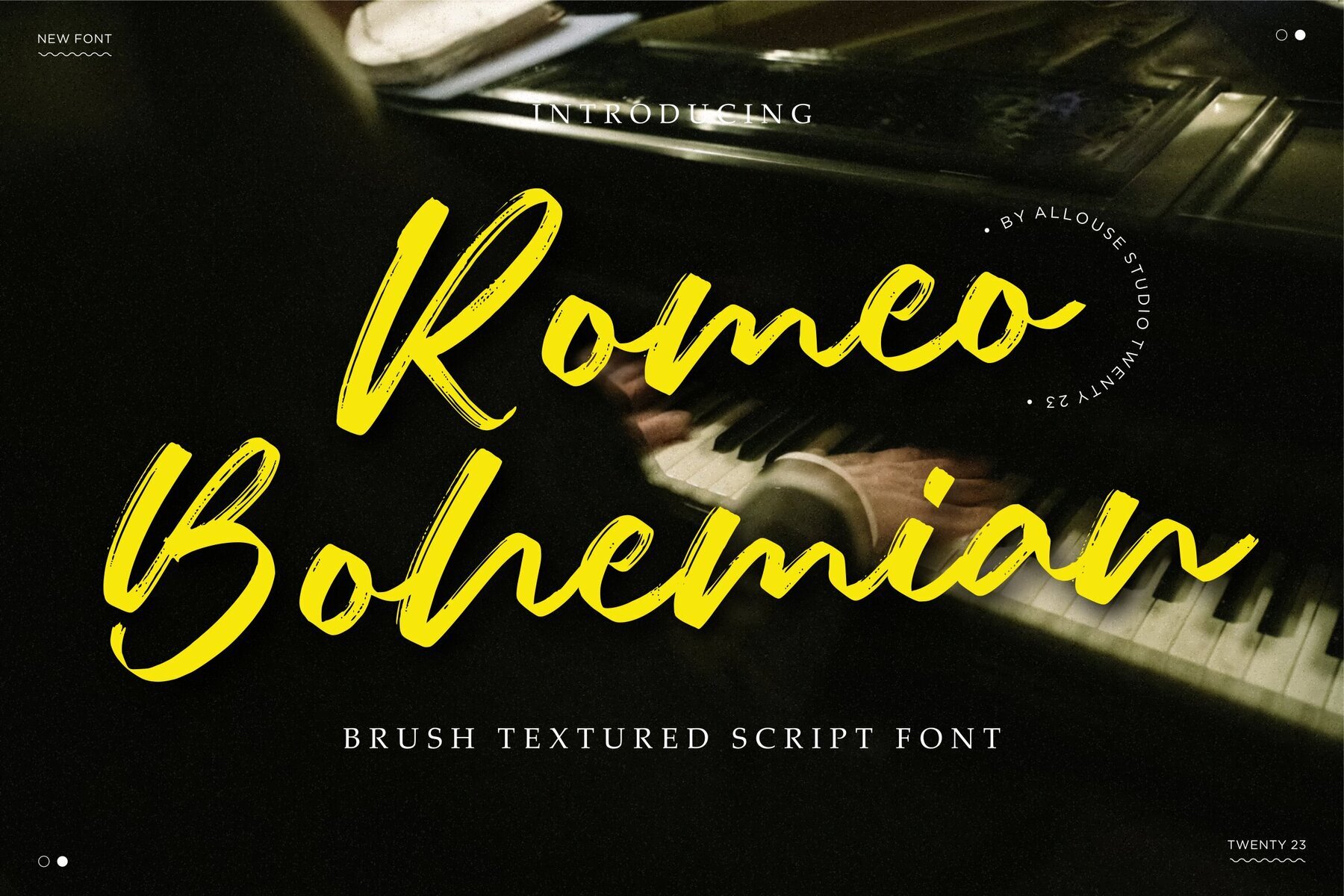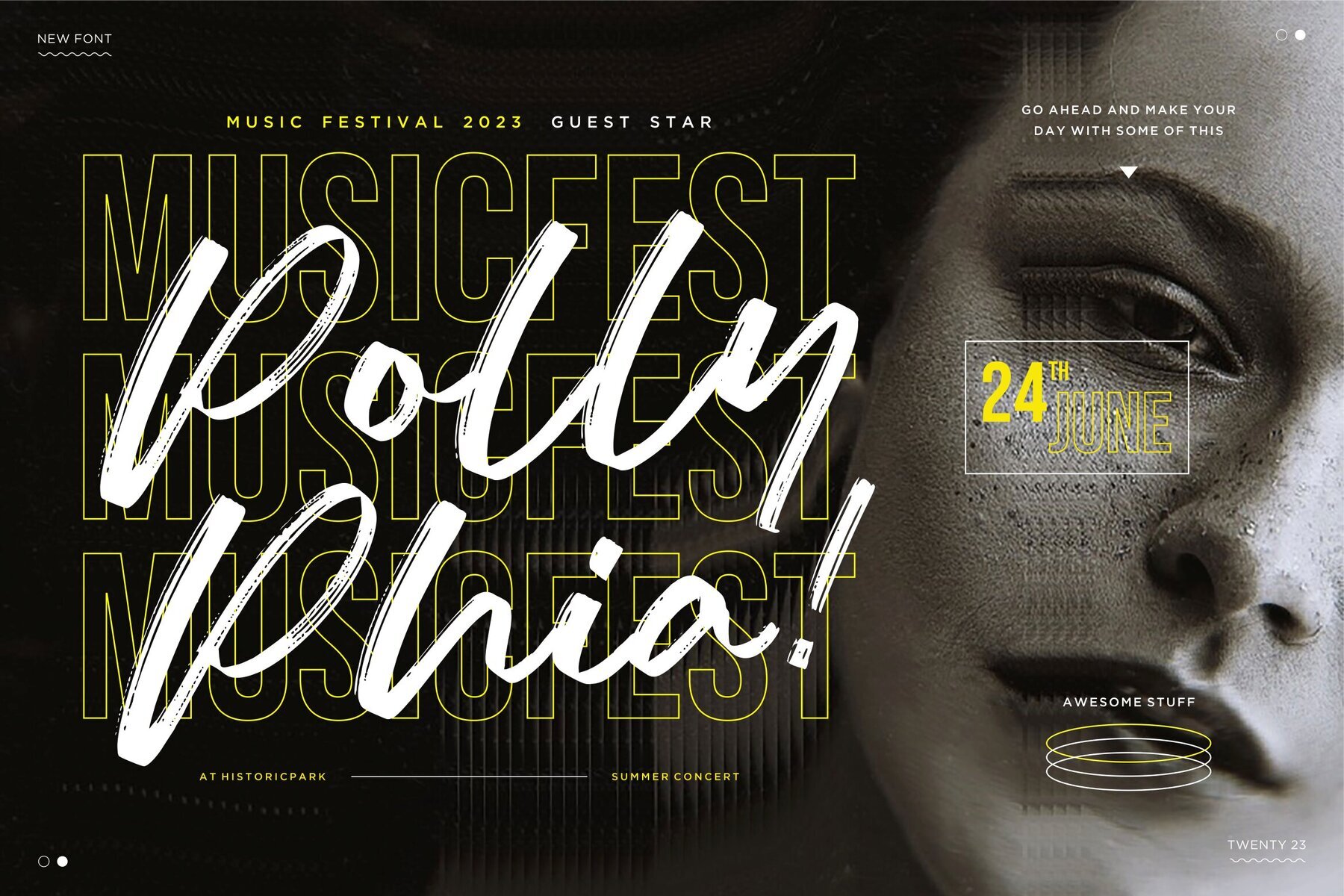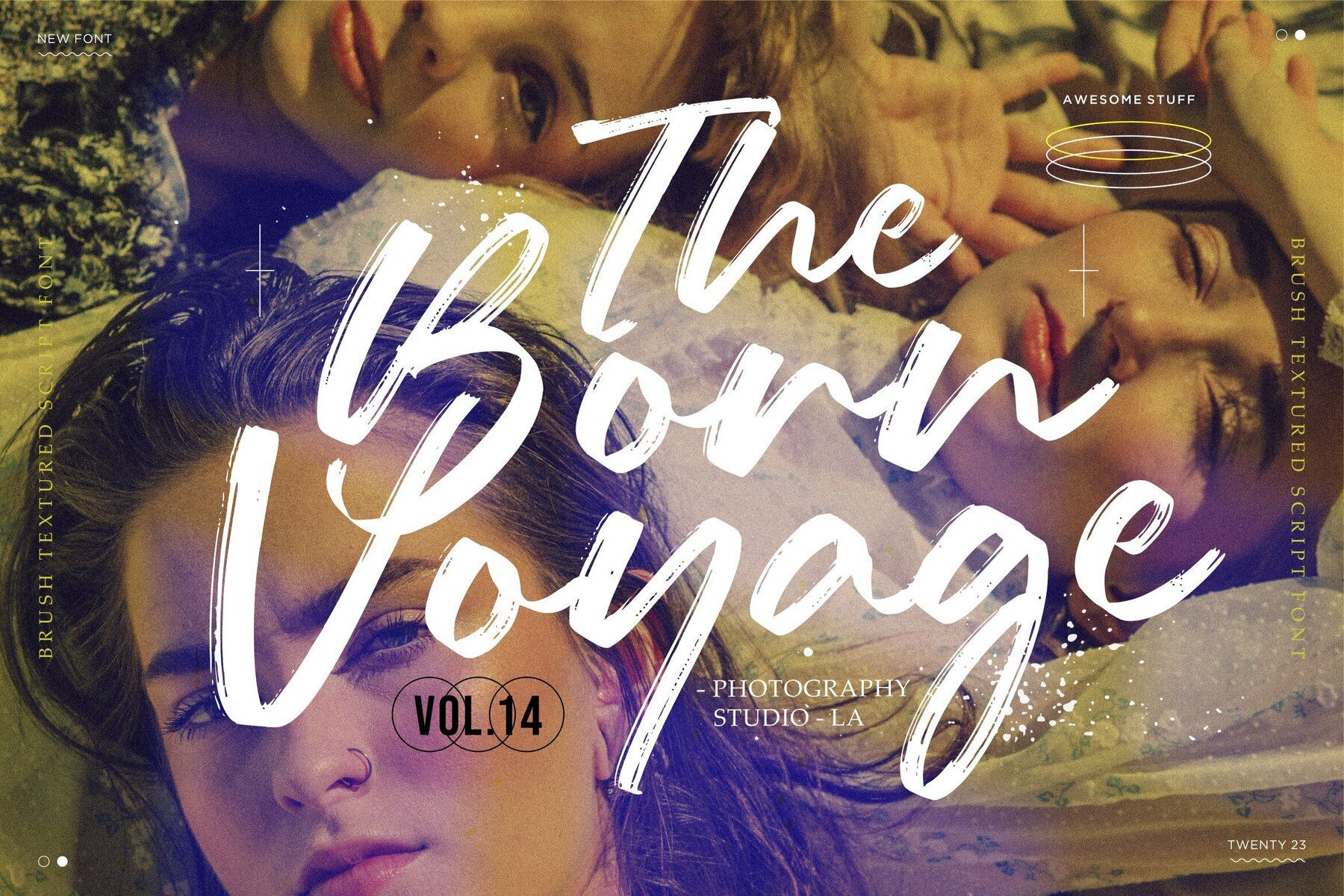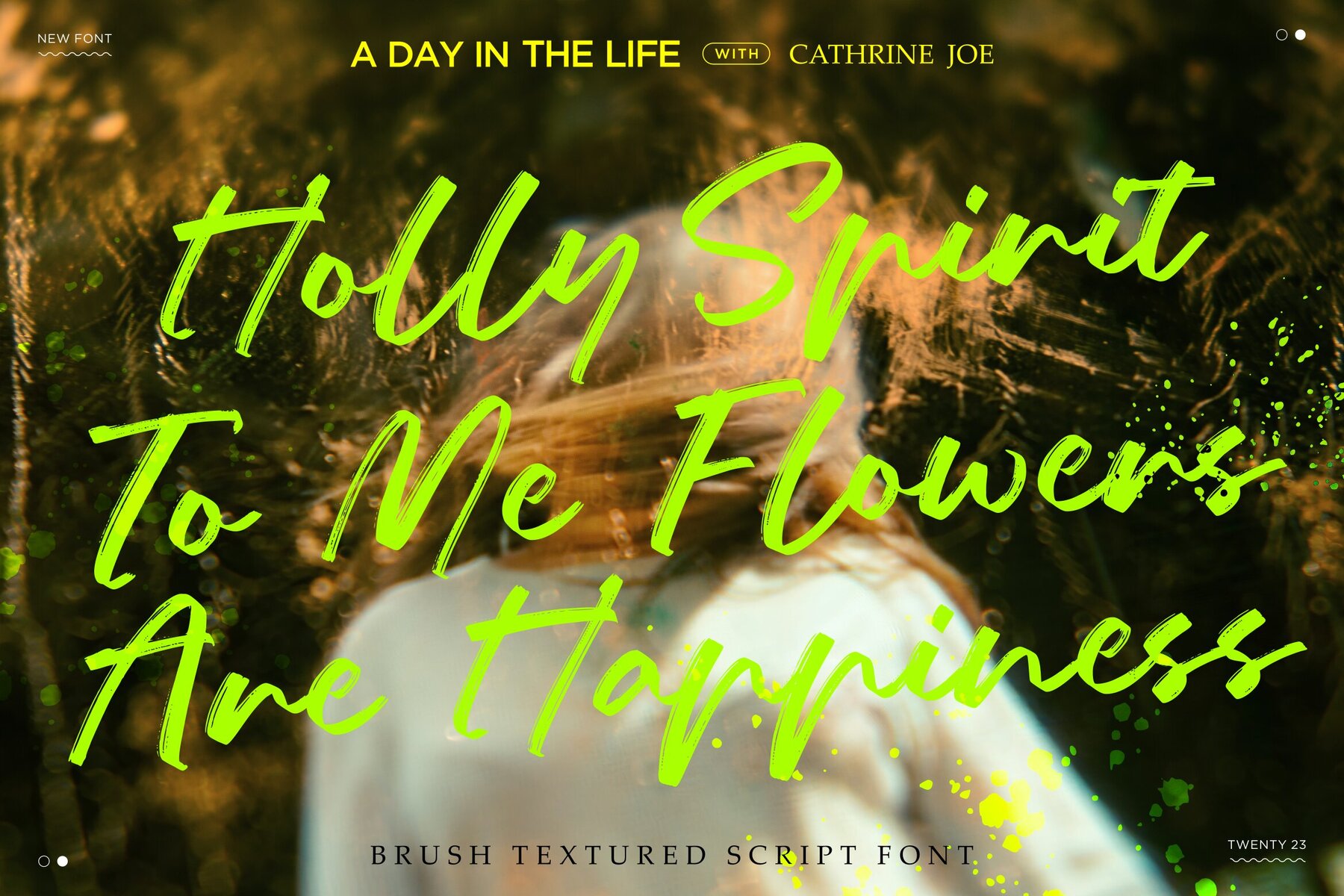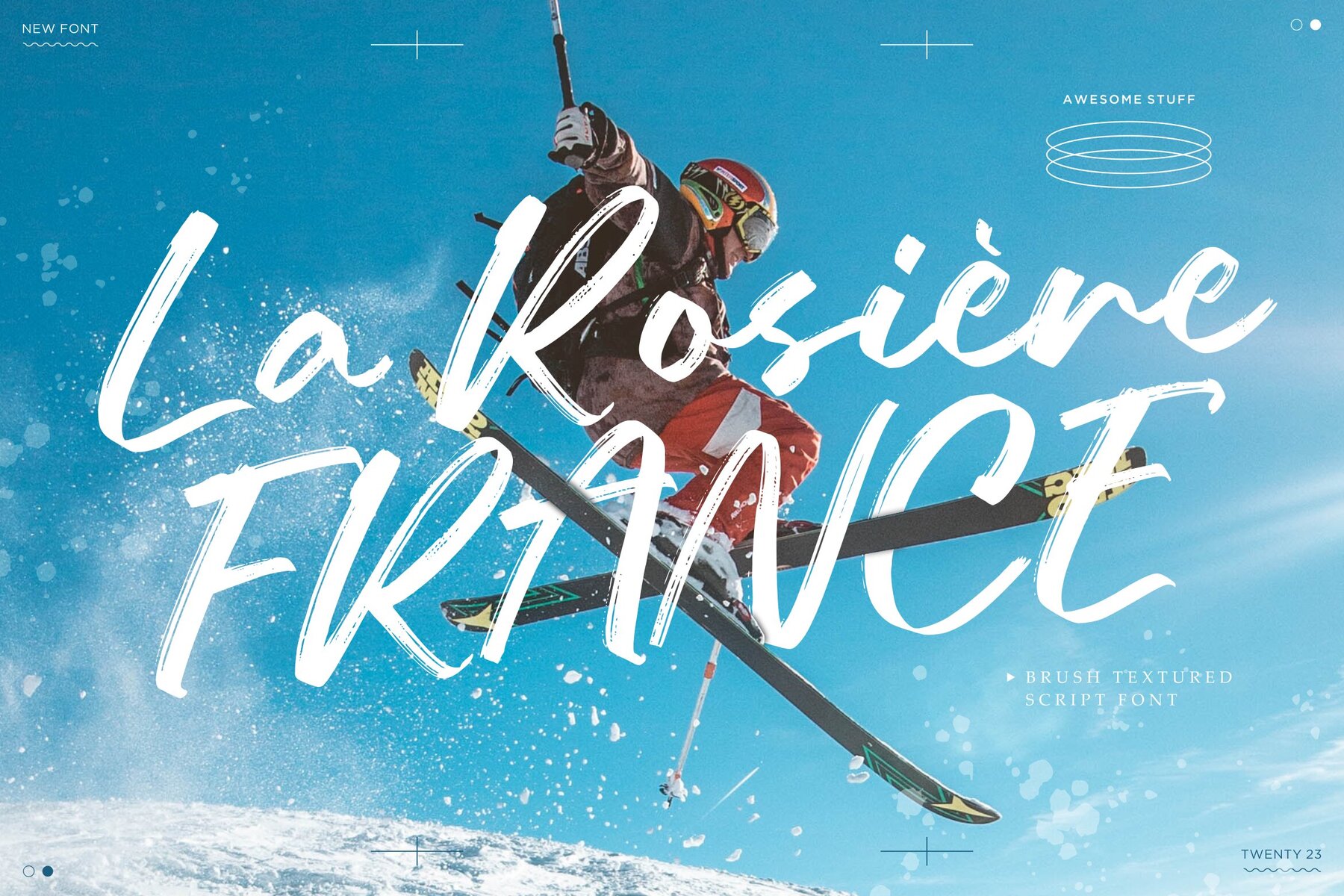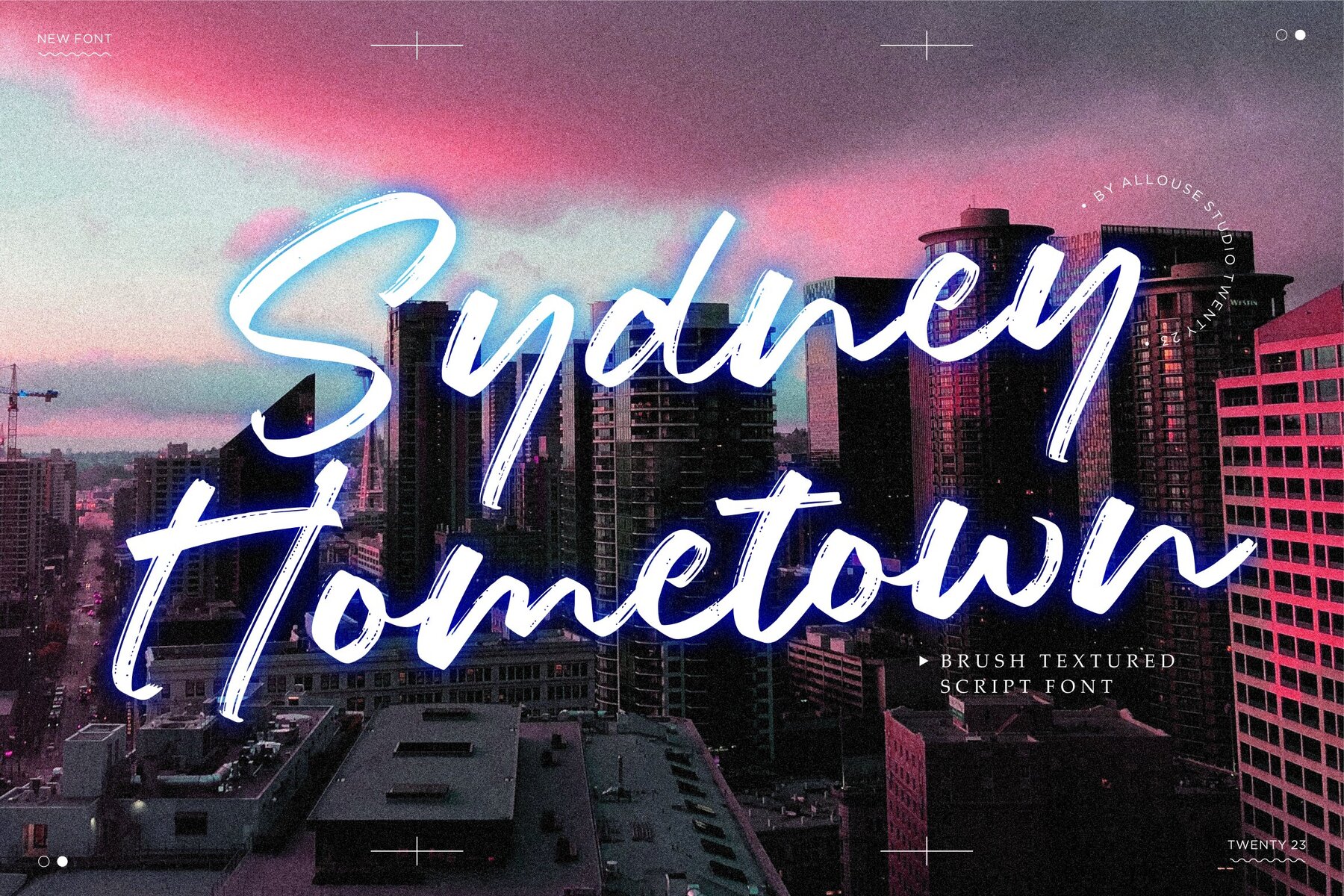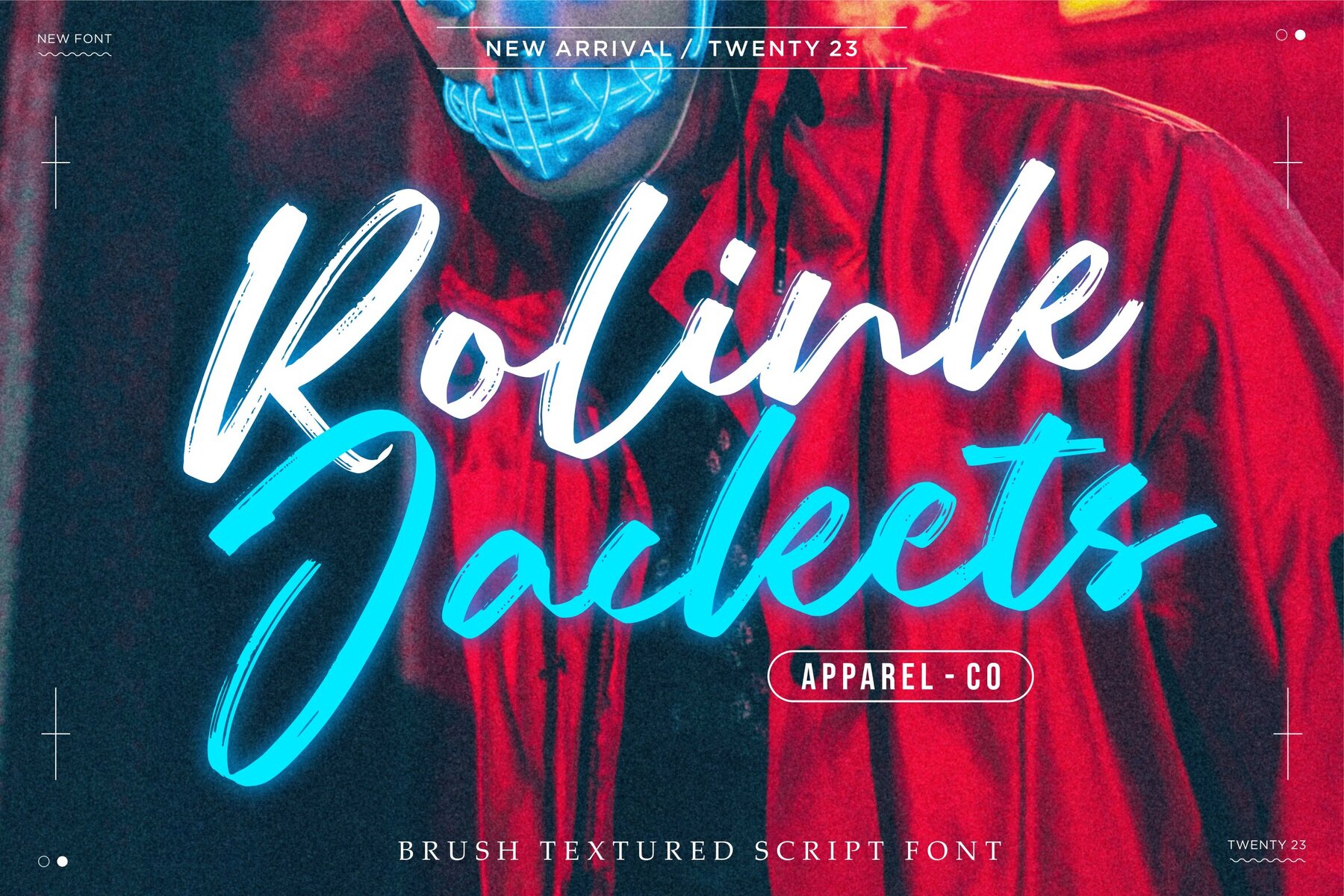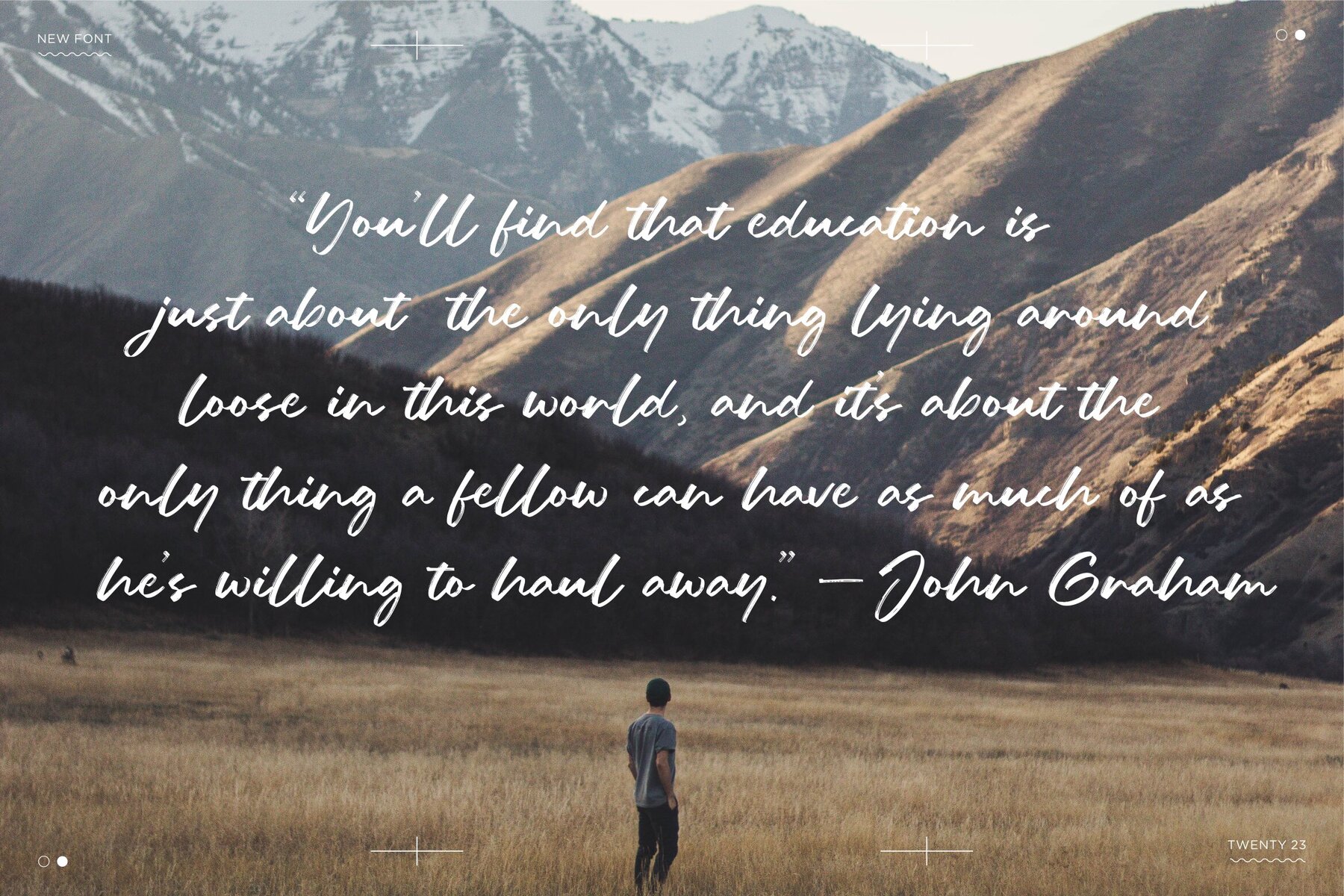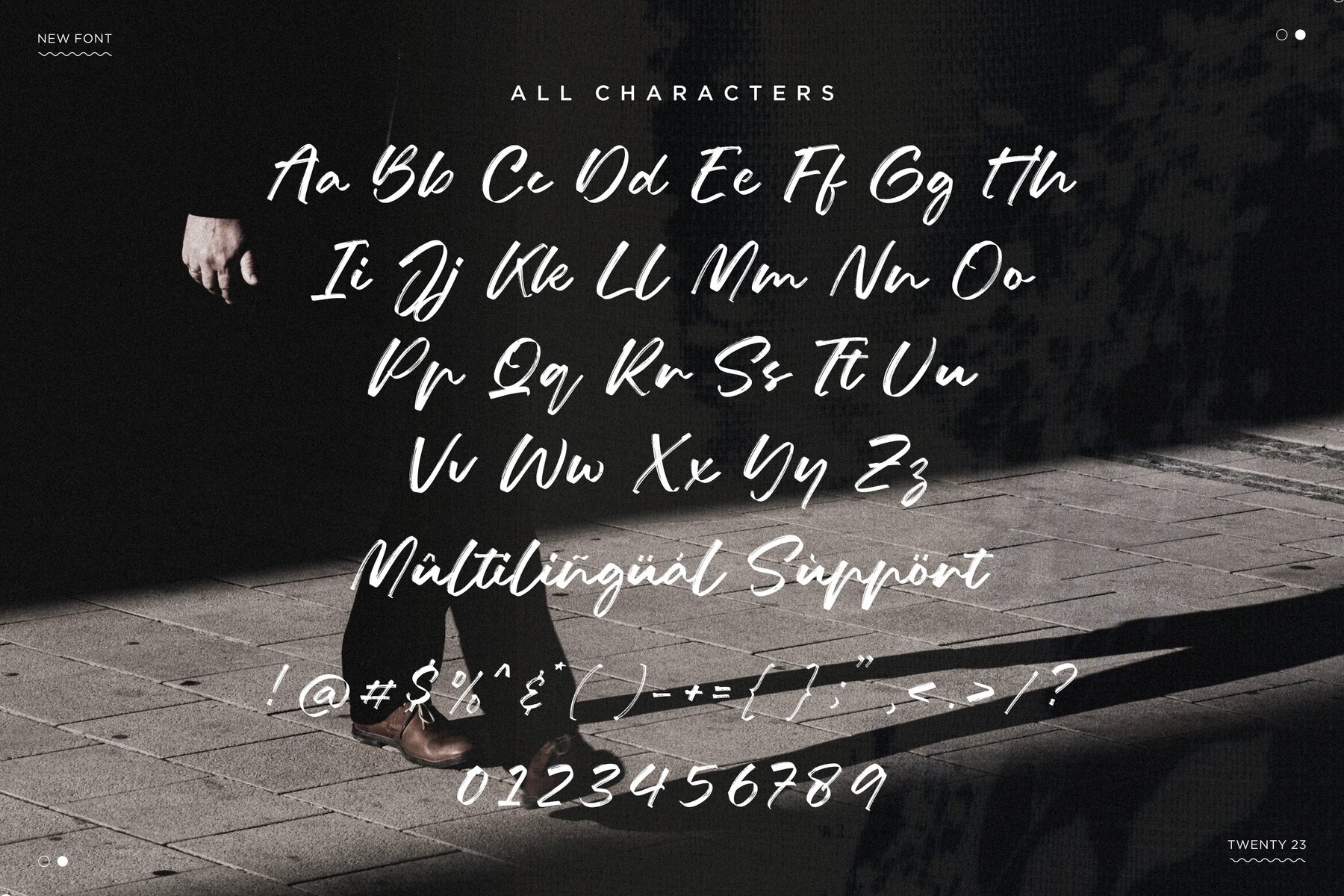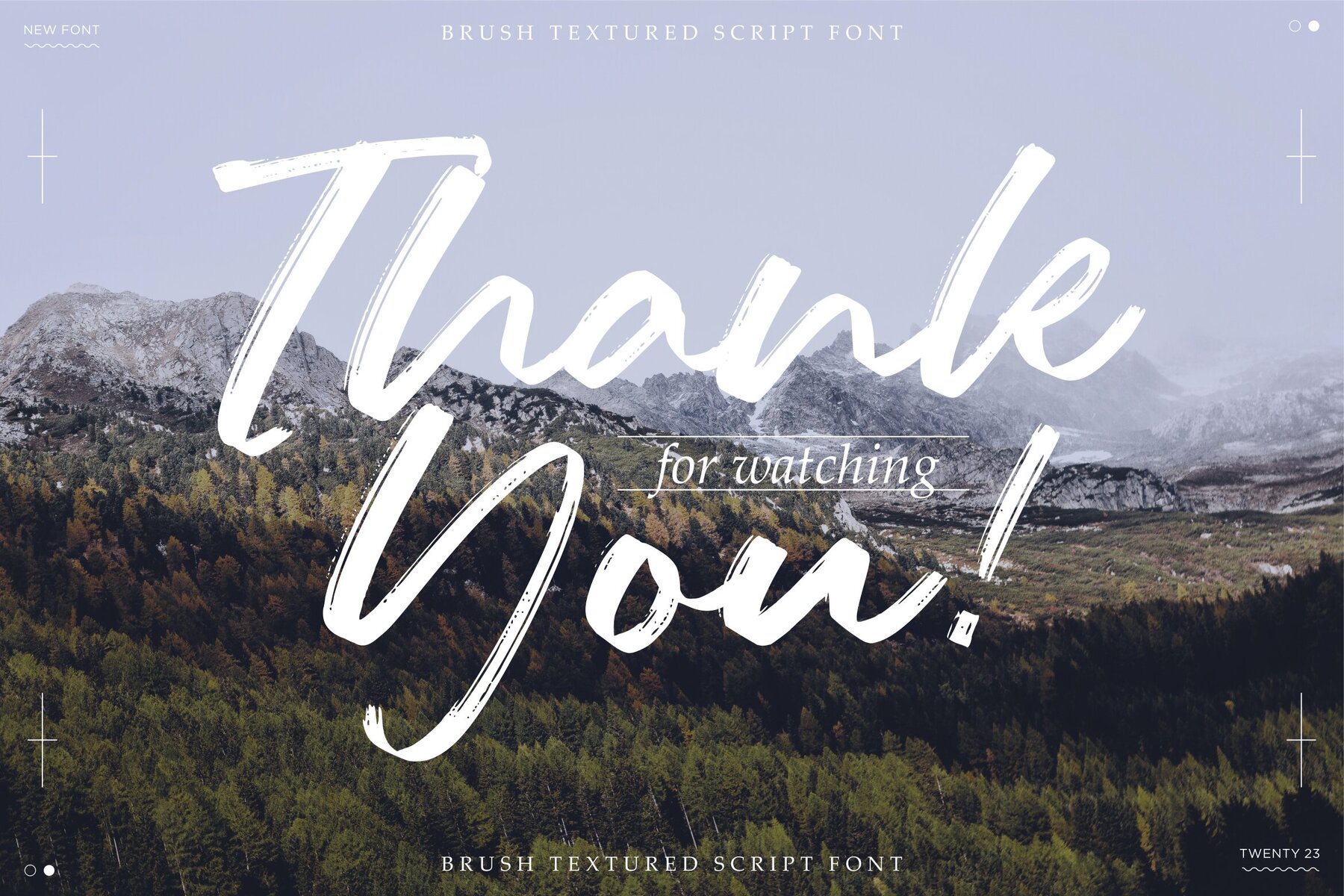
Romeo Bohemian Font
Romeo Bohemian
Romeo Bohemian offers a unique brush texture that brings a touch of artistic flair to any project. It is ideal for adding a personal touch to your product packaging, branding projects, magazine layouts, social media designs, and wedding invitations. Whether used for a bold statement or subtle accents, this font helps express words beautifully over any background.Romeo Bohemian: A Brush Textured Script Font
Perfect Uses